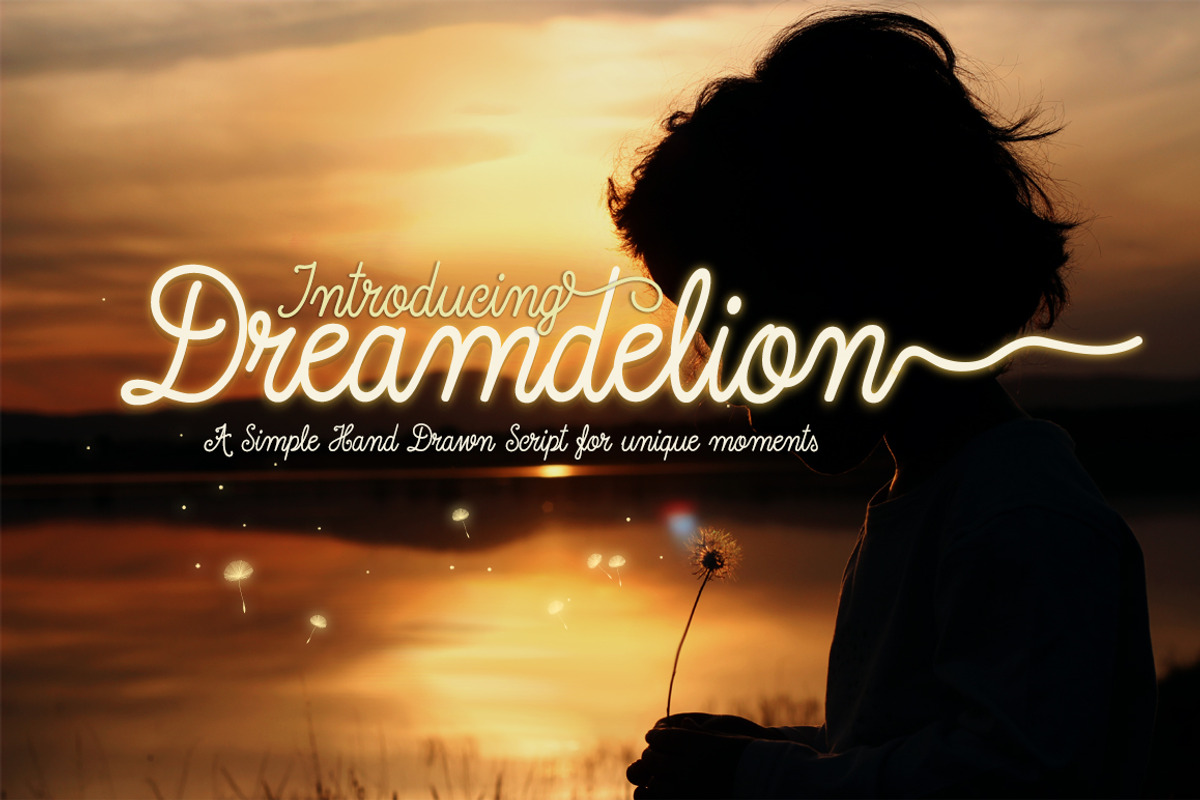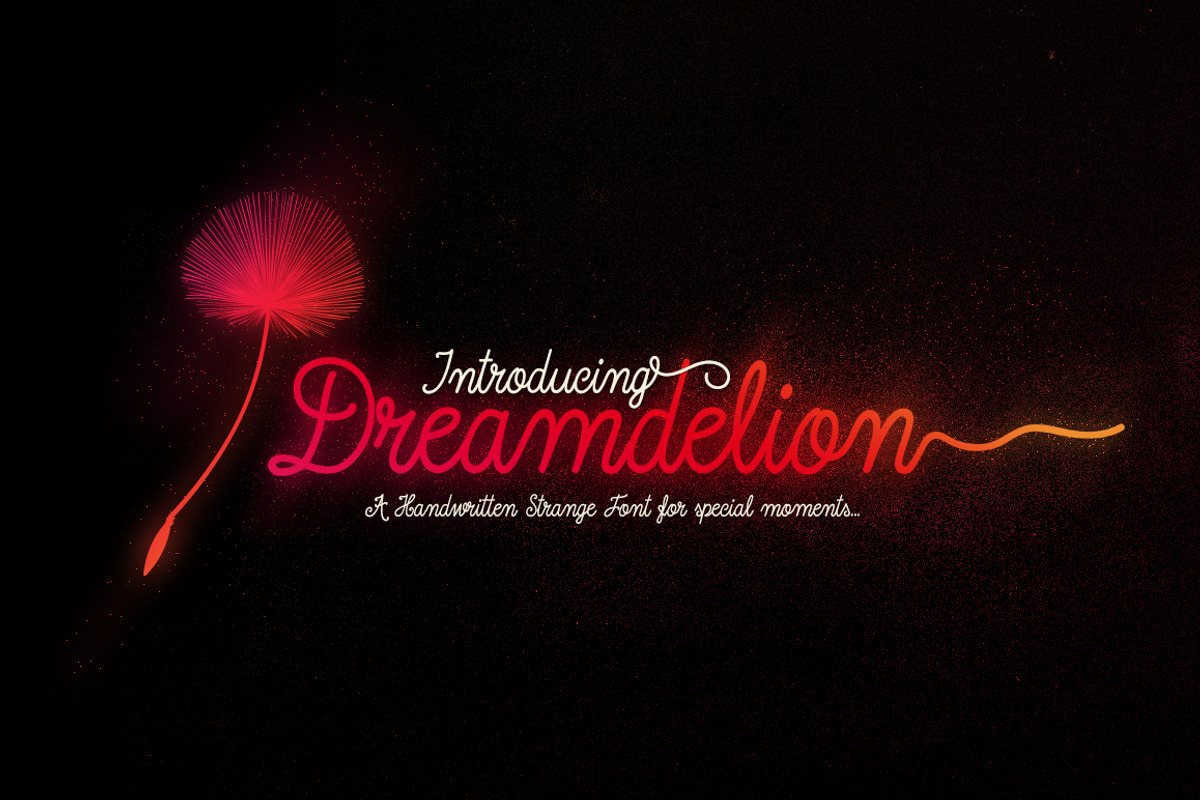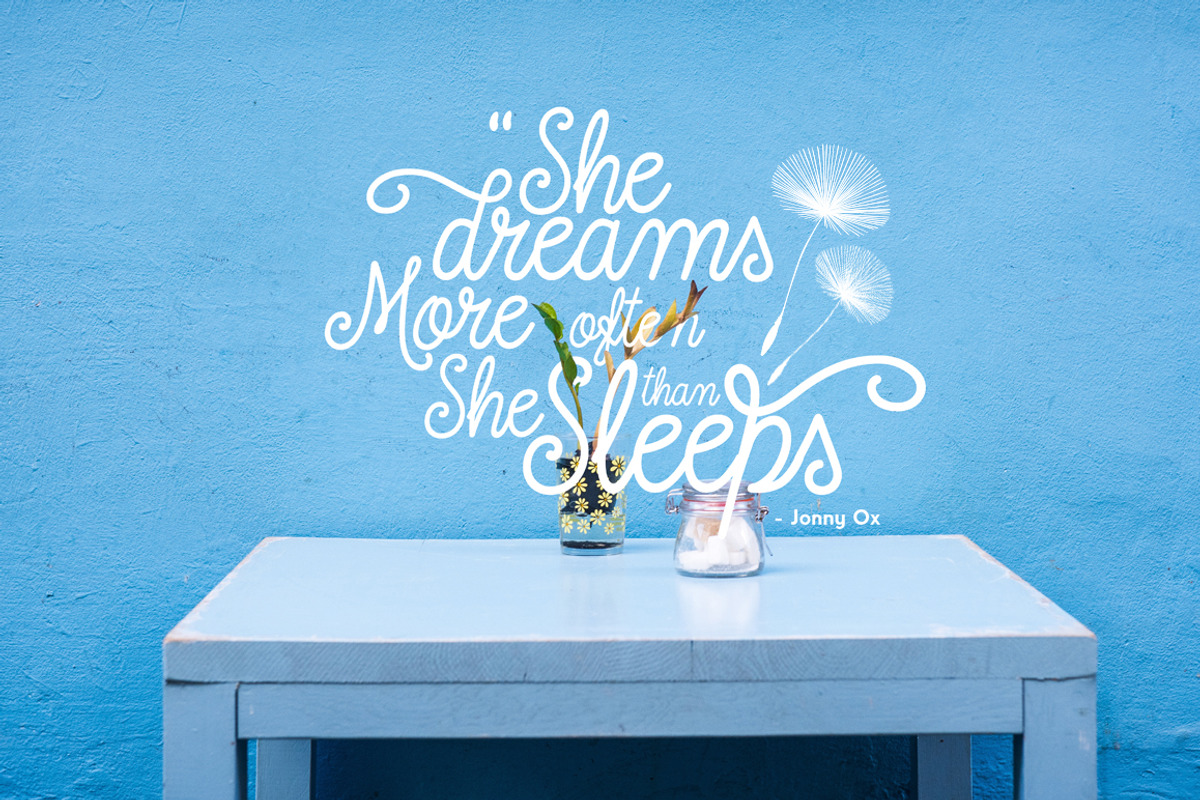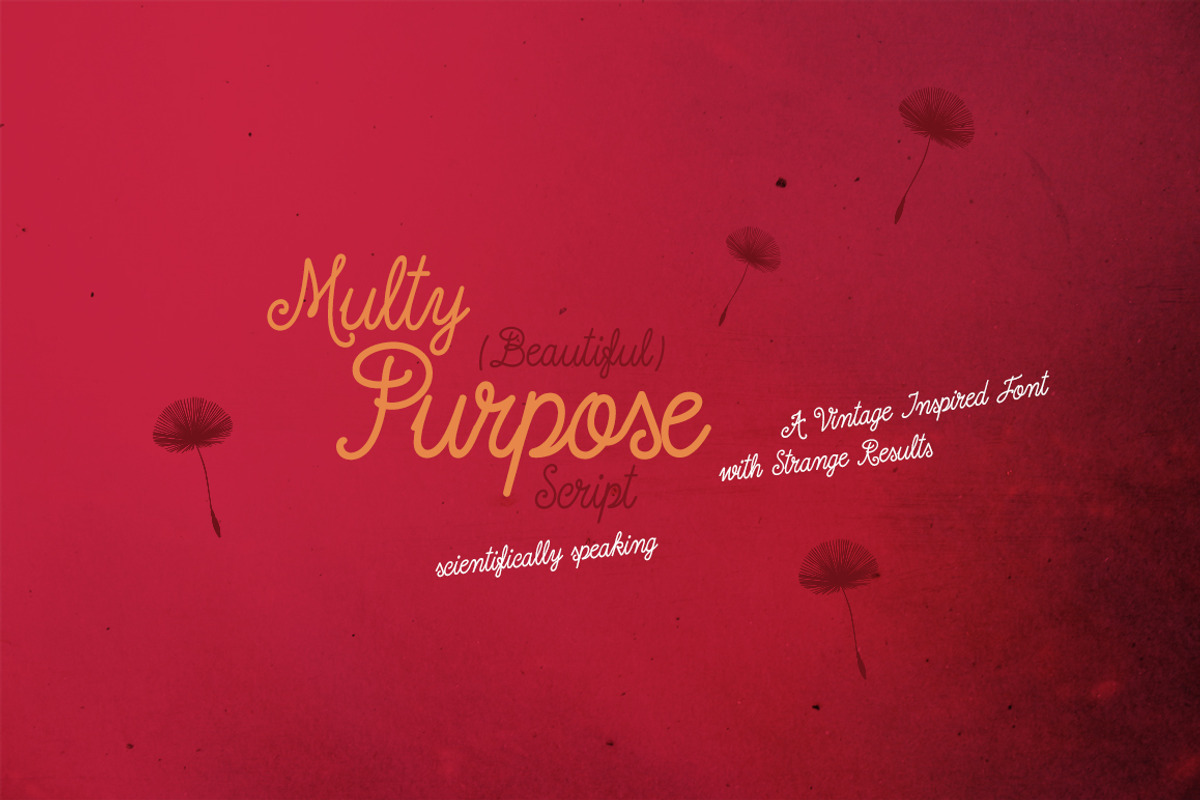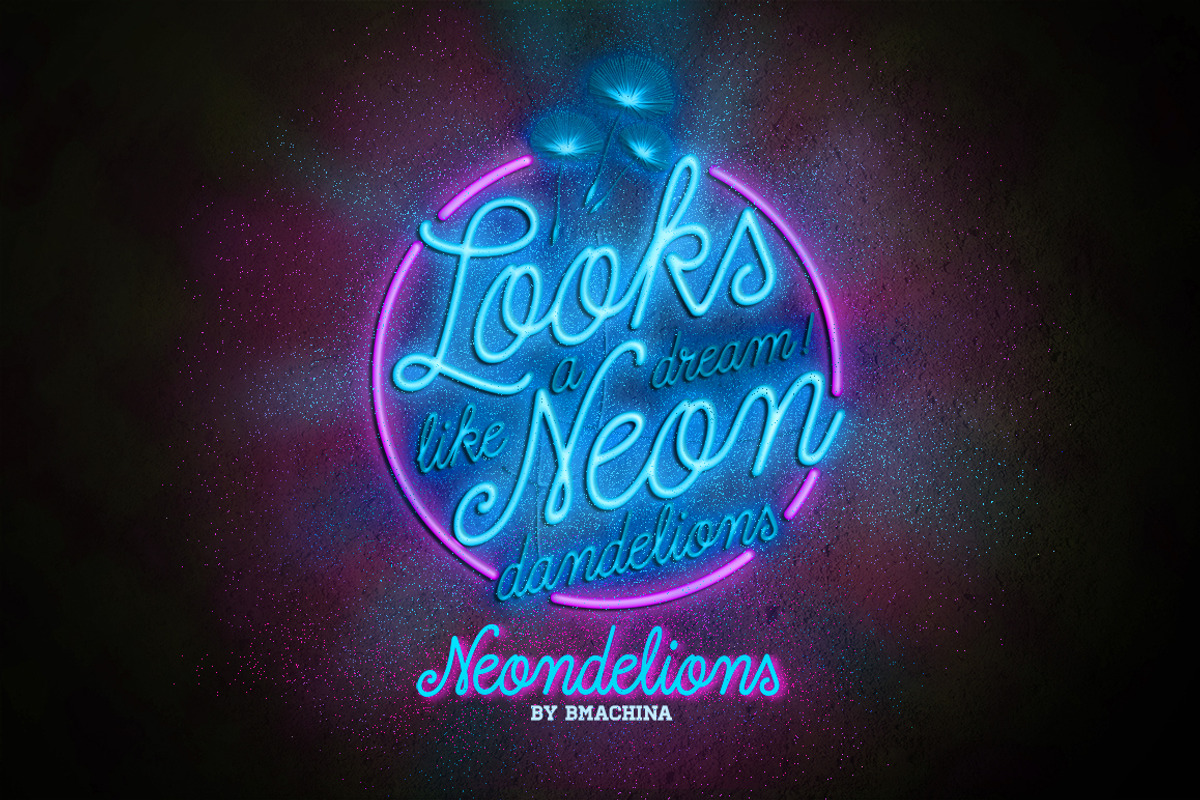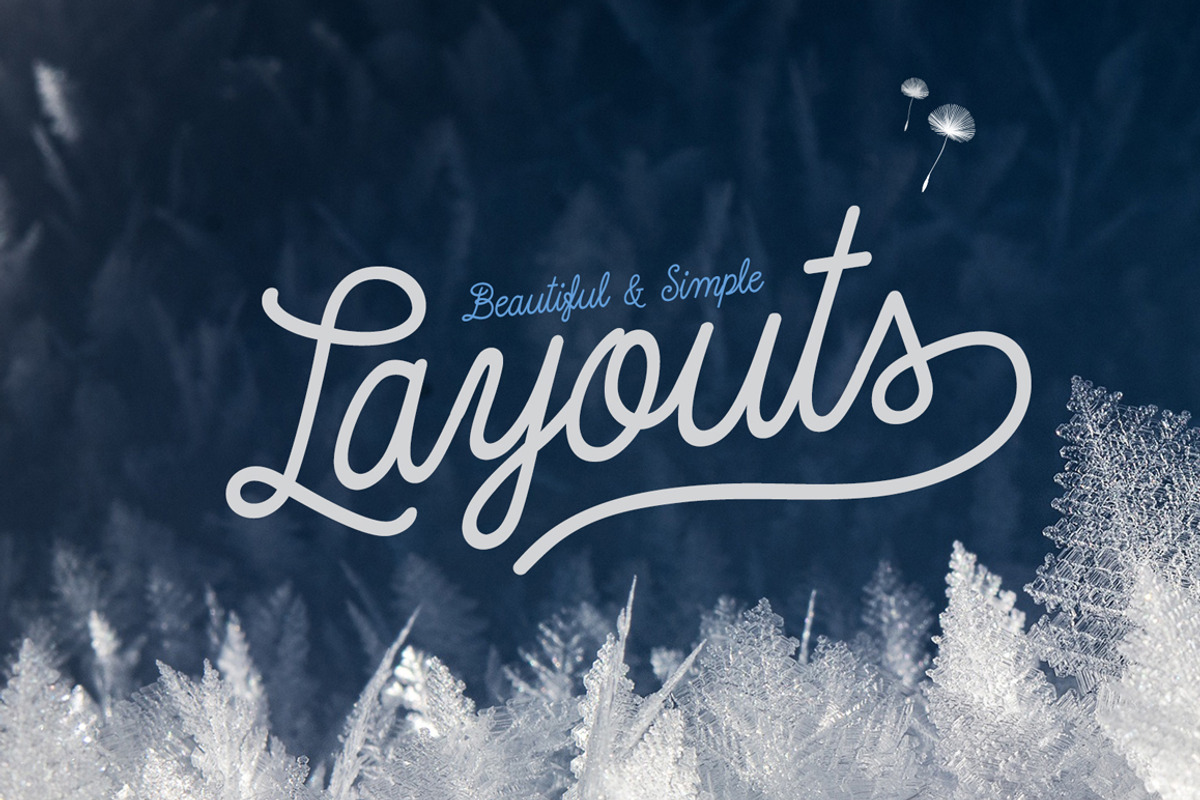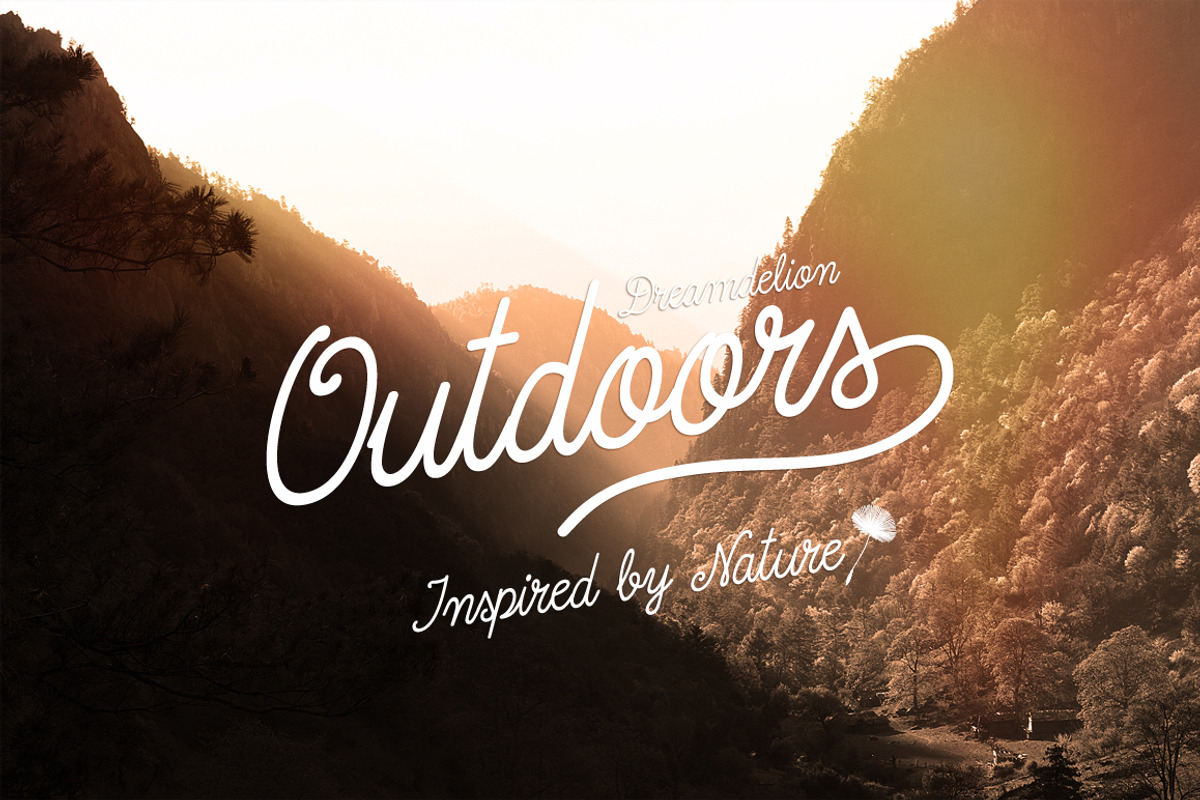
Dreamdelion Font Script
Dreamdelion Font - A beautiful nostalgic and unique font script with a sweet natural look, and somewhat childish.
Dreamdelion is special because his fluidness is slightly imperfect, resulting in a lovingly handwritten monoline script, with an air of a vintage and a nostalgic touch. It does remind us our first school days when blowing a Dandelion was a fascinating discovery.
Dreamdelion is a multi-purpose and extremely versatile font.
Unlike most of the other scripts, Dreamdelion Font is great for logos, headers, and headlines but his bigger strength is when you use it on texts. It produces a gorgeous text block completely unique from the rest of the fonts. But don't take my word for it, see it for yourself on the Preview N#6 and N#7. Your layouts are going to be remarkably different with just selecting Dreamdelion font.
Dreamdelion Font equipped with:
A wide range of international and alternative characters
Uppercase, lowercase, numeral, punctuation & Symbols
Stylistic Alternates (First and last letters)